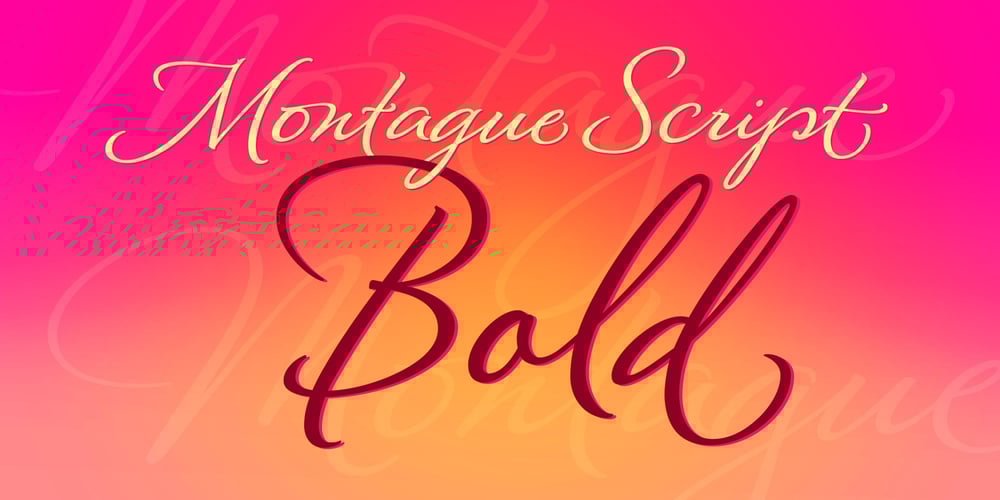
Montague Script Bold
Montague Script Bold font
Montague Script Bold Font Family was designed by Stephen W. Rapp and published by Stephen Rapp. Montague Script Bold contains 1 styles and family package options. Montague Script Bold is a beefed up version of the 2009 Type Directors Club Award winning Montague Script. The added weight makes it more ideal for display purposes like book titling, packaging, and headlines. Like the original award winning version, it features an energetic rhythm with loads of swashes and ligatures. Having its origin in fine sable brush lettering done on smooth vellum paper, both versions are ideal for greeting card and invitation text. There are beginning, ending, and alternate versions for almost every letter.